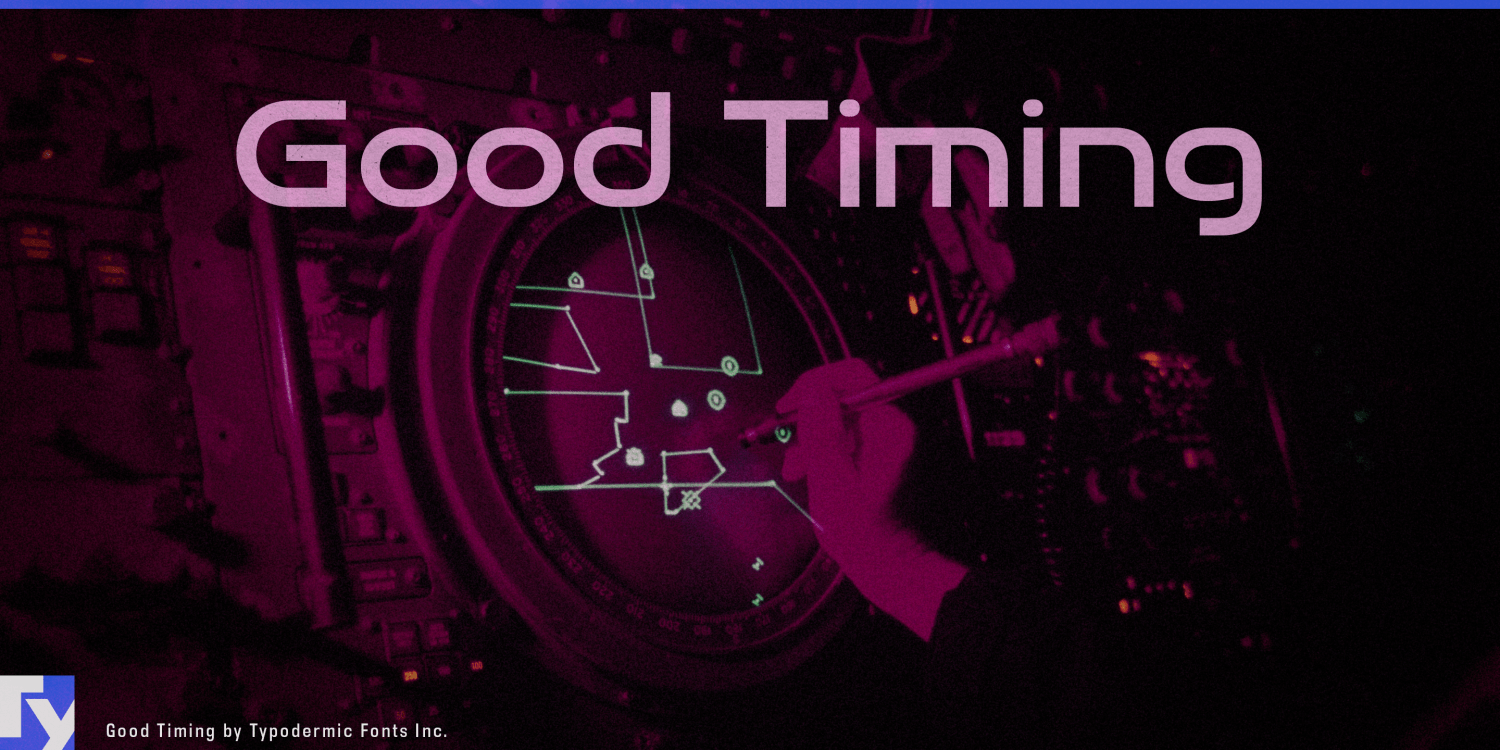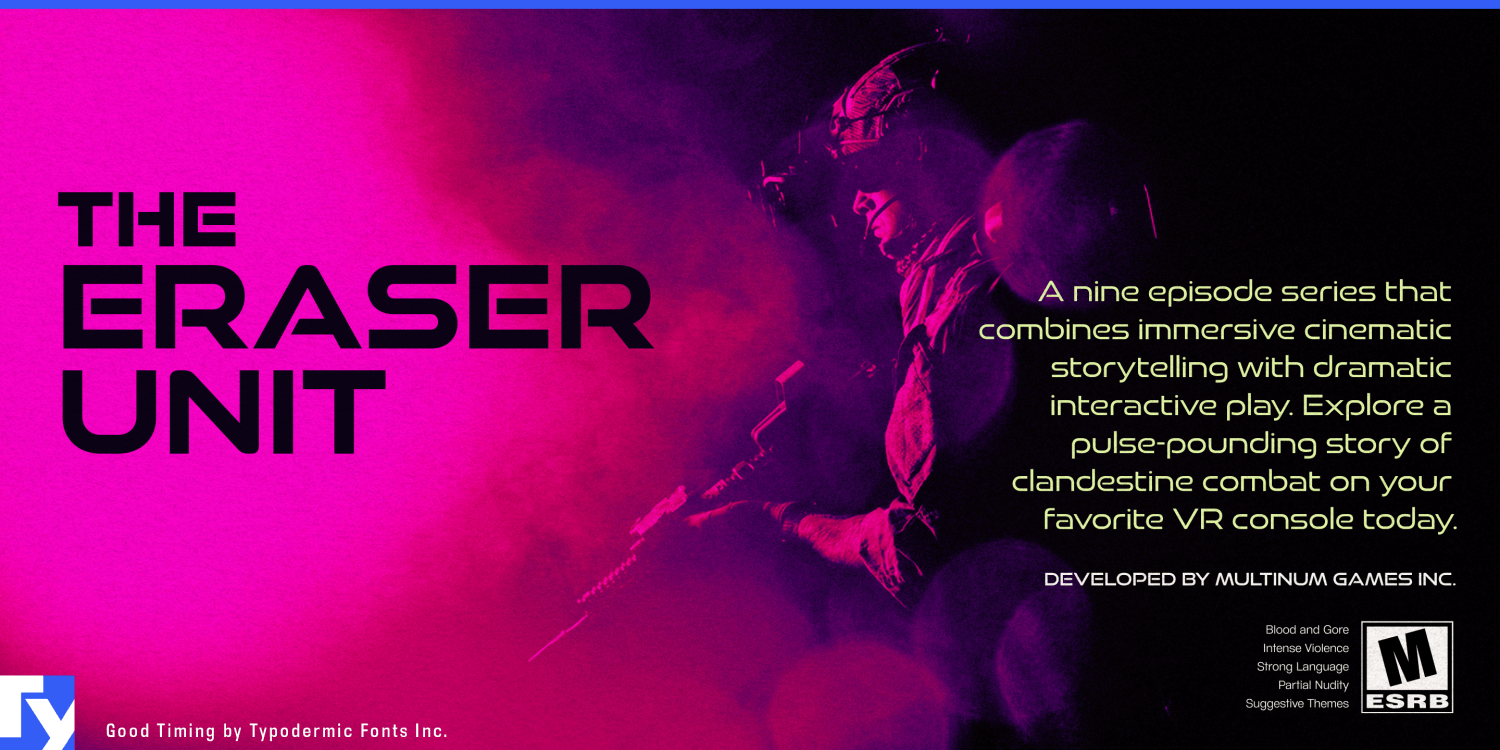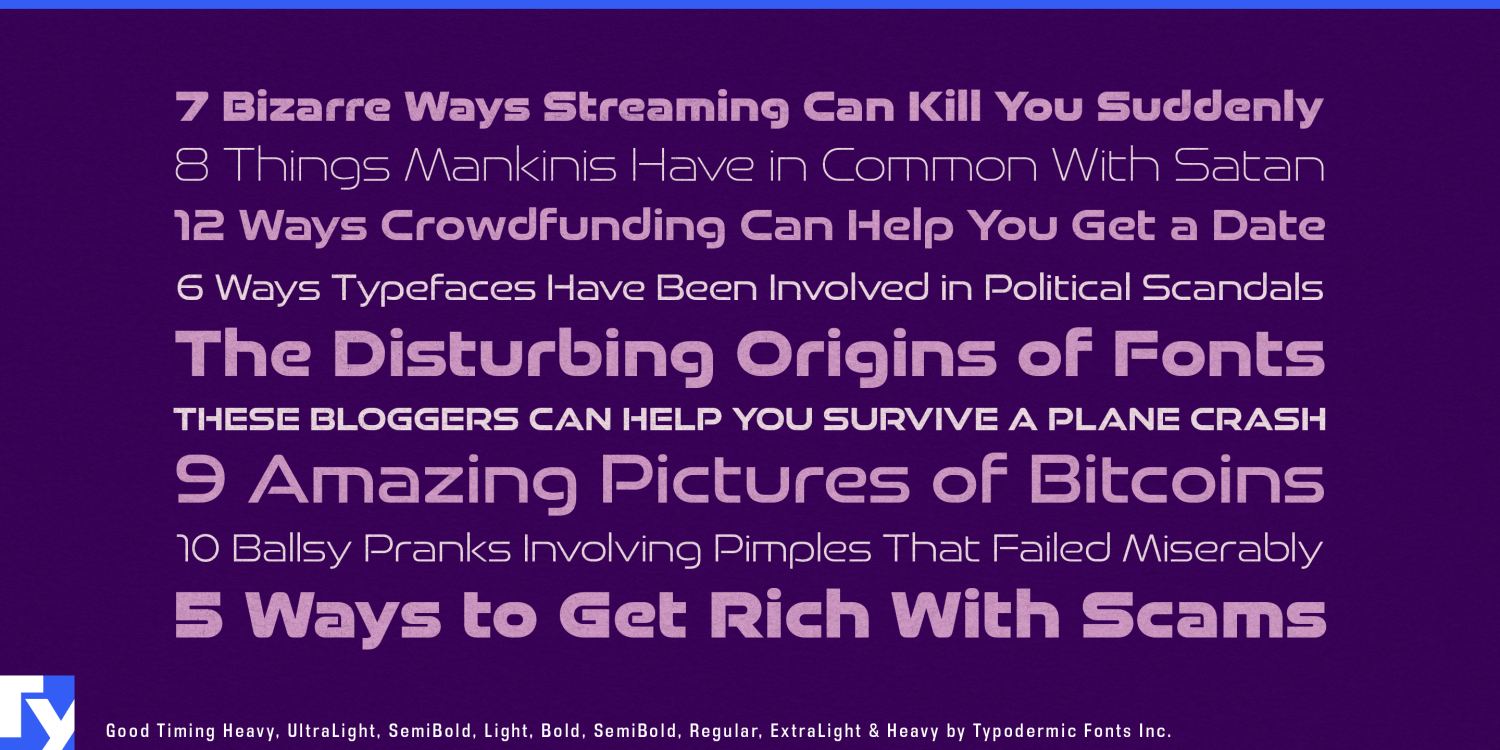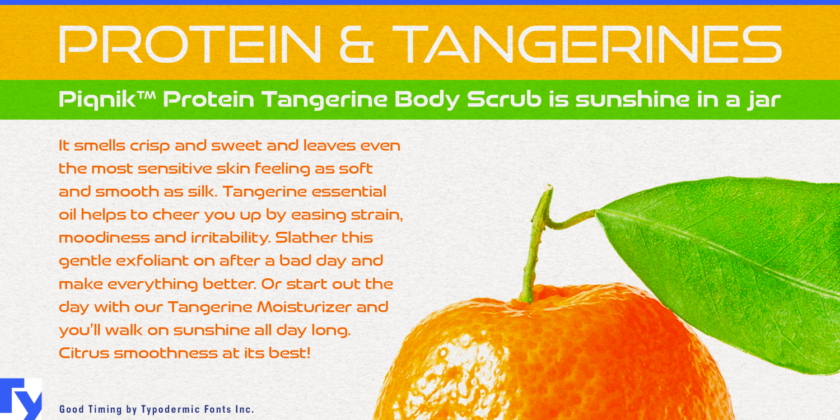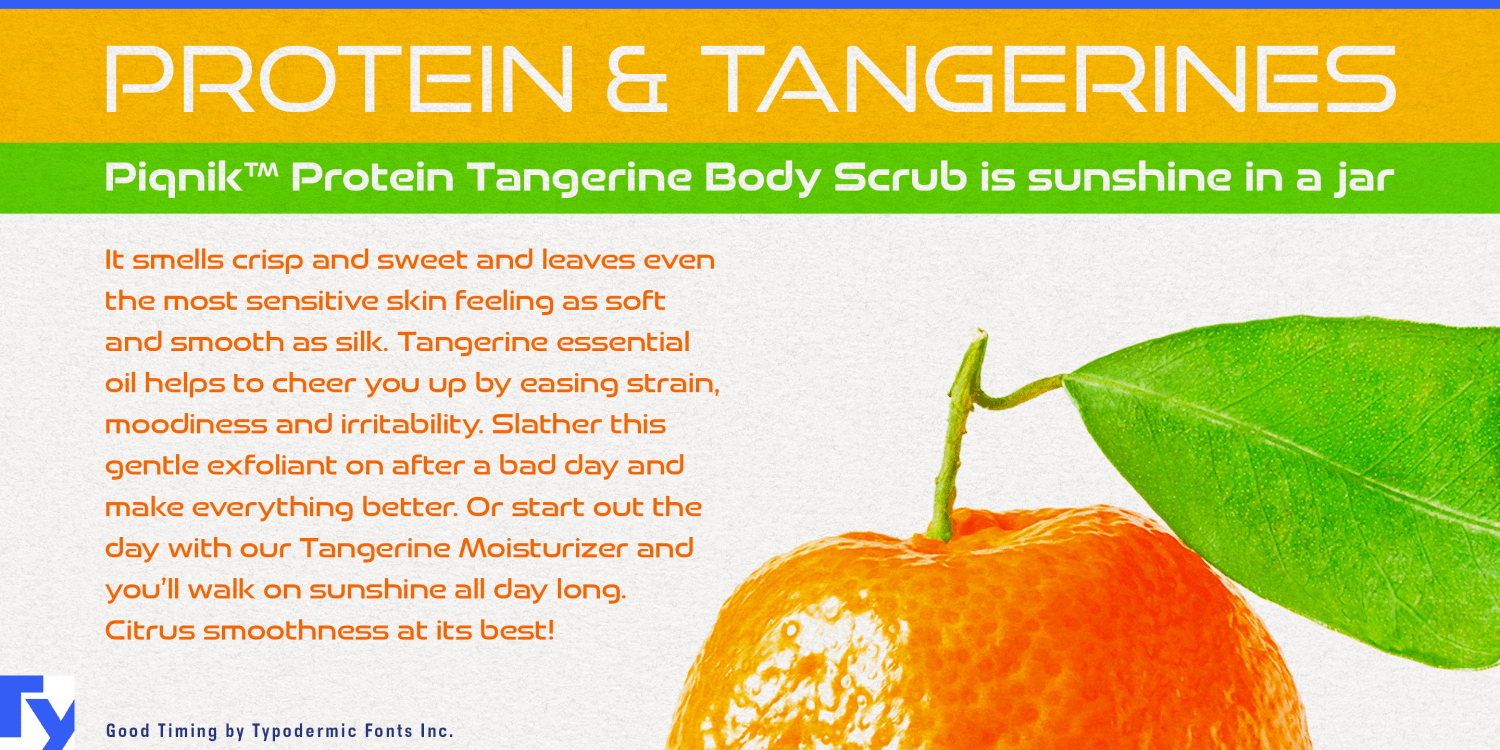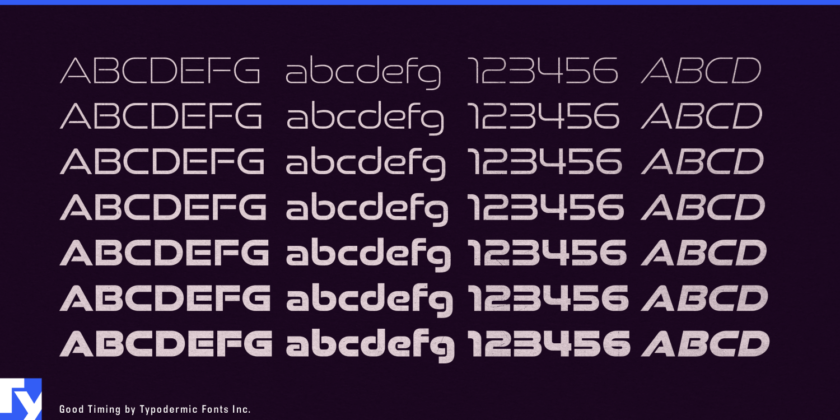
Good Timing
About Good Timing
Welcome to the future of typography with Good Timing—a typeface that doesn’t just keep up with the times, it defines them. Born from the DNA of the iconic Good Times font, Good Timing evolves the concept into a sleek, versatile powerhouse…